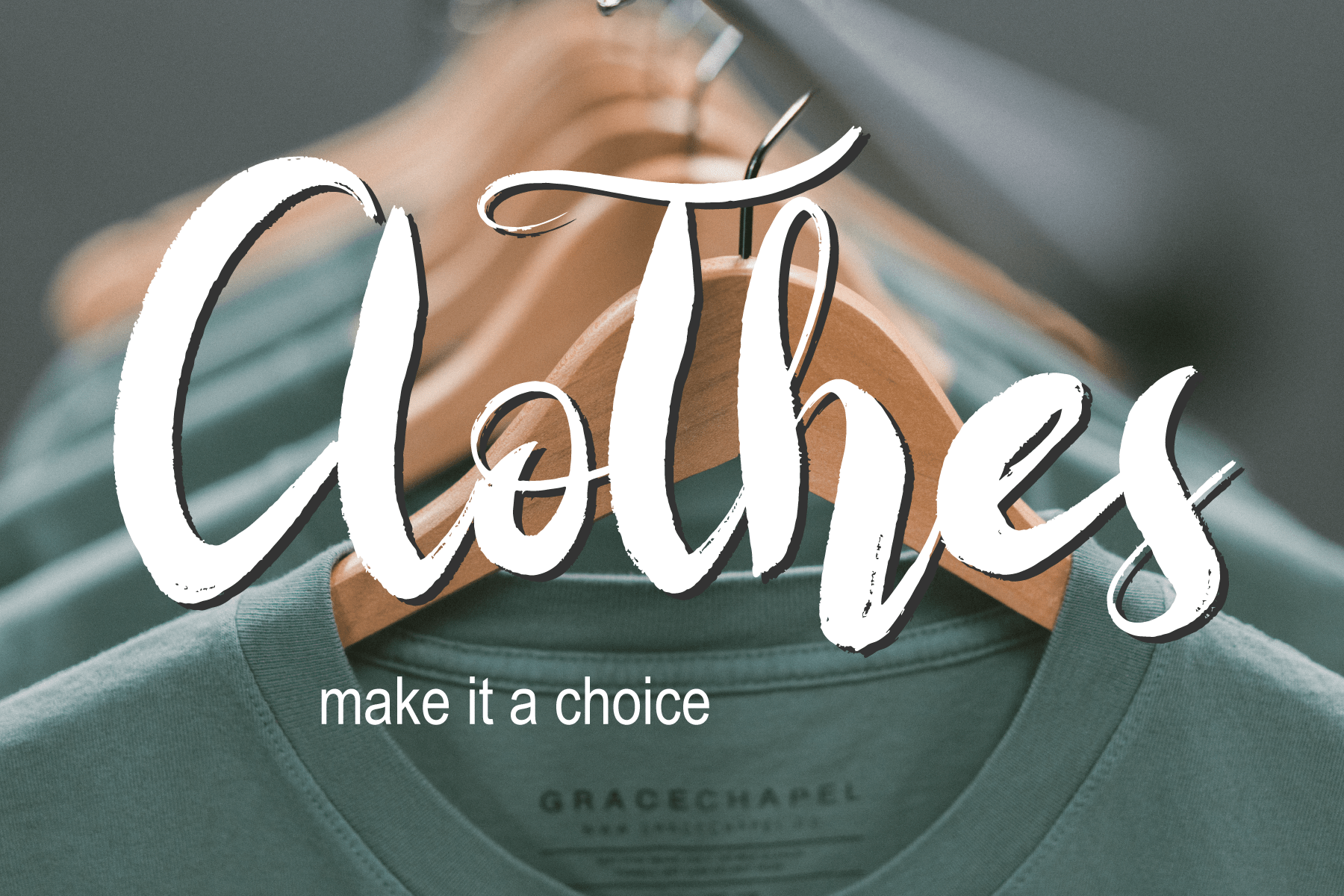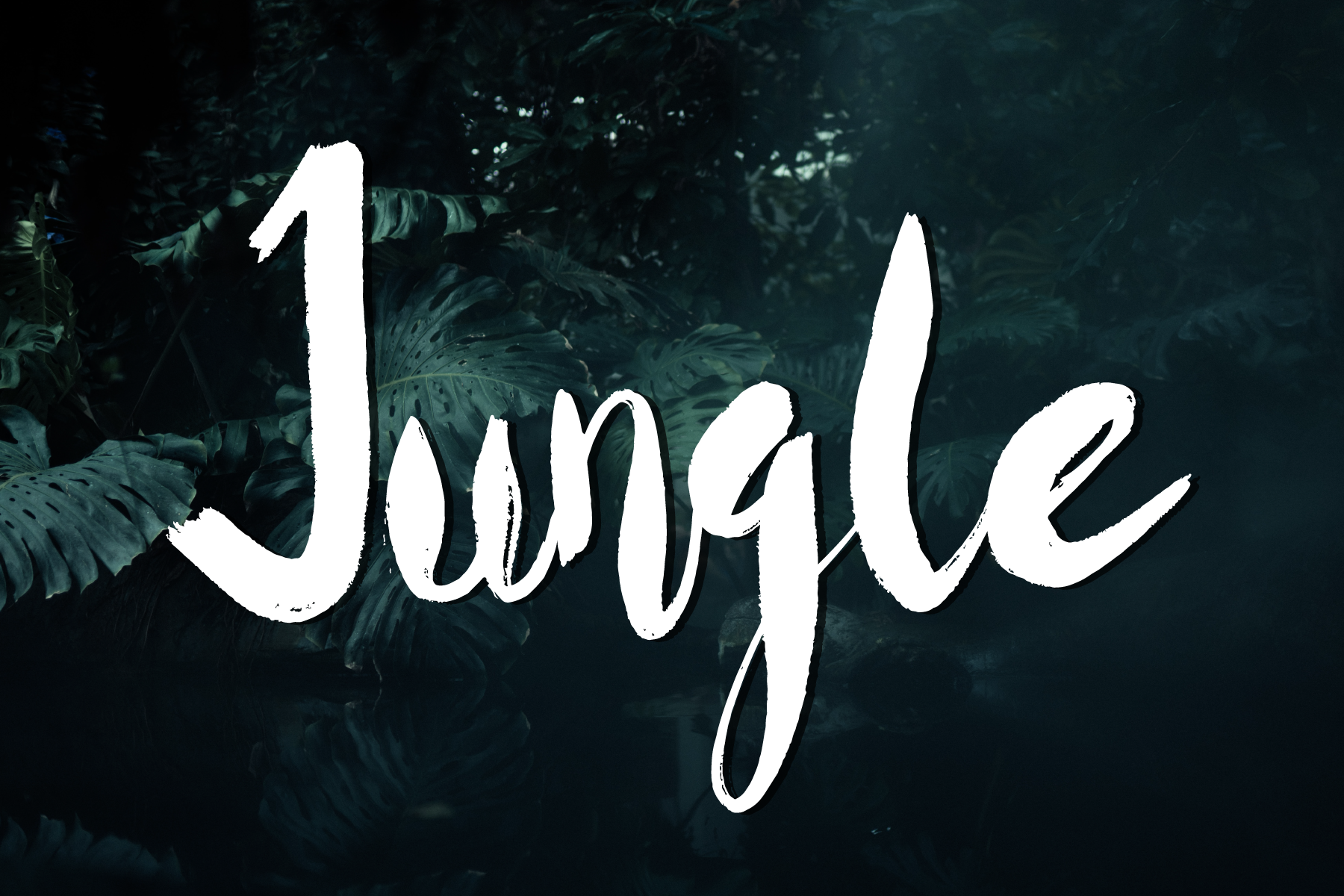
Brother Script Font
It’s a trendy handwritten font. This versatile script font has a wide spectrum of applications ranging from greeting cards to headlines and is guaranteed to add a romantic feel to your next project.